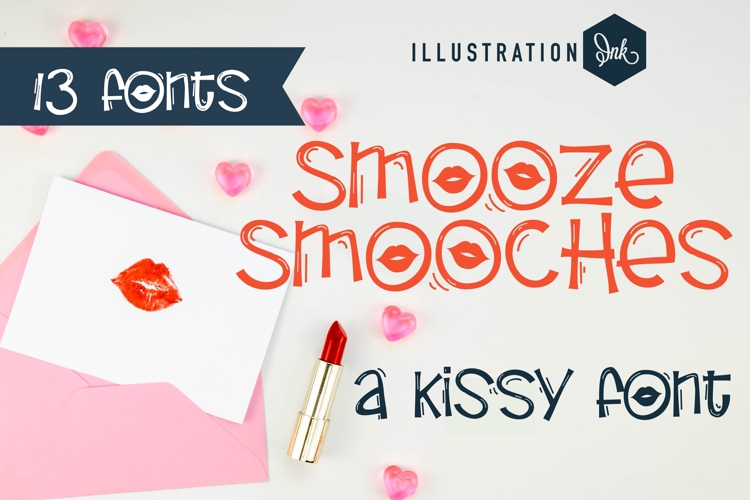
ZP Smooze Font Family
This hand-crafted font is a whimsical, hand-written, print with kisses on several family members. There are 13 variations included.